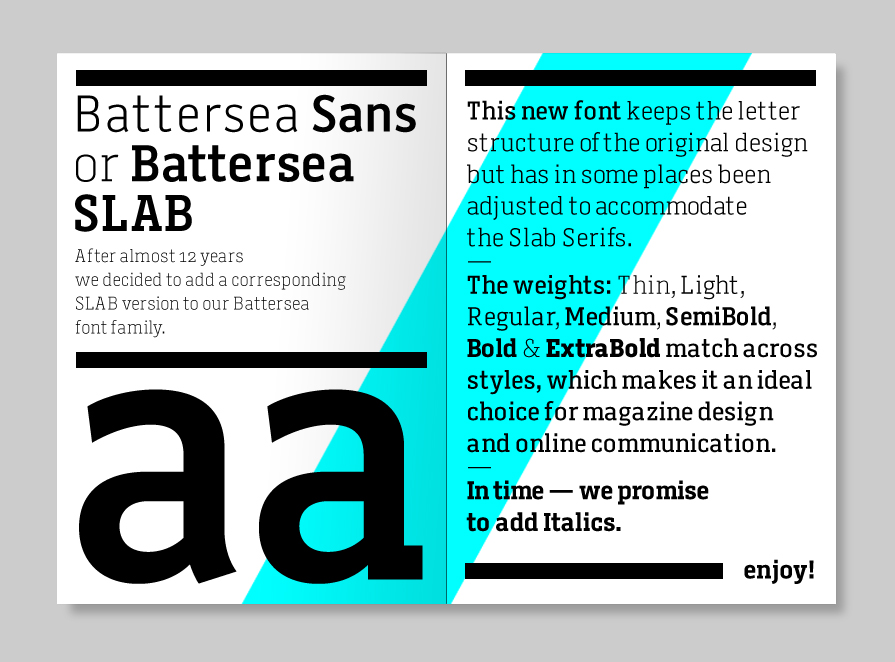
Battersea Slab
Battersea Slab is a slab serif font designed to match our sans serif version of Battersea Sans. Battersea Slab retains the letter structure, design and weight system of the original typeface. Battersea Slab is crafted for print and screen usage.
Designer: Henrik Kubel